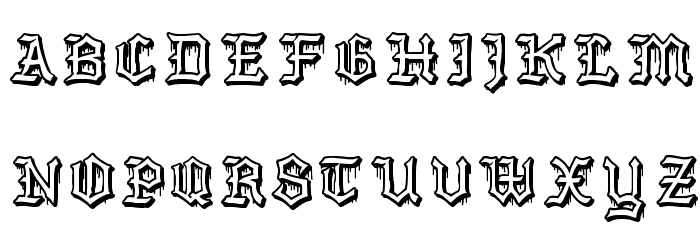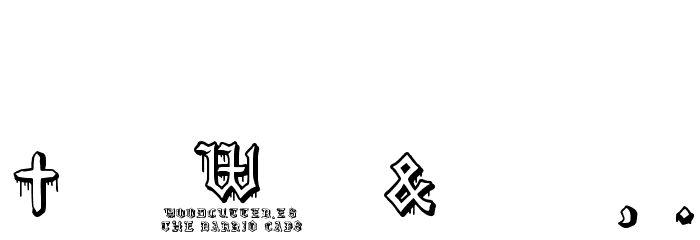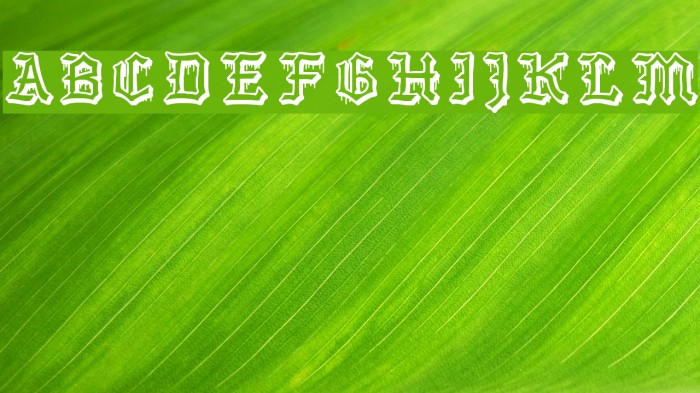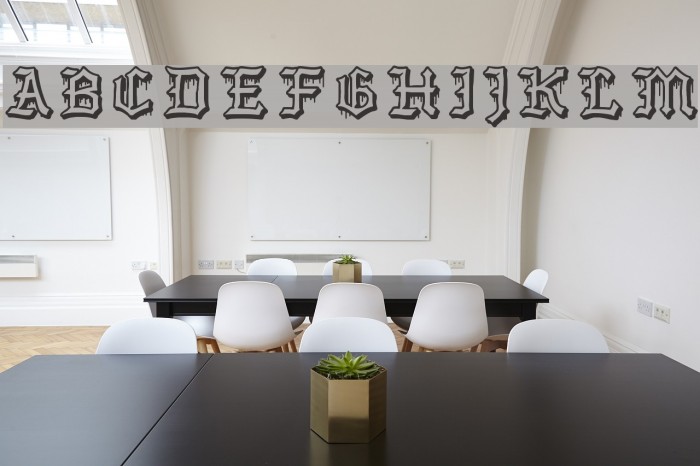
The Barrio Caps Font
This font features a bold, decorative style with a strong presence and intricate details. Each character is designed with sharp edges and a slightly gothic influence, giving it a unique and striking appearance. The uppercase letters are particularly ornate, with embellishments that enhance their visual impact. The font's design is reminiscent of traditional tattoo art and street culture, making it ideal for projects that require a bold and edgy aesthetic. The characters are well-defined, with consistent stroke widths that contribute to its readability despite the decorative elements.
A bold, decorative font with a gothic influence and intricate details.
- Proposed Projects: Ideal for tattoo designs, streetwear branding, posters, and album covers.